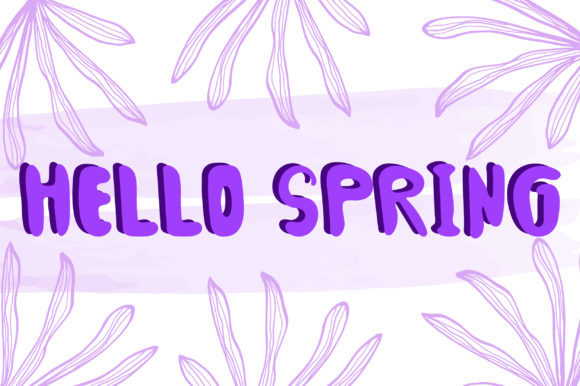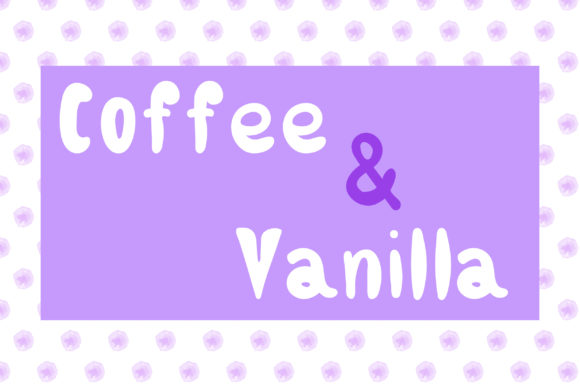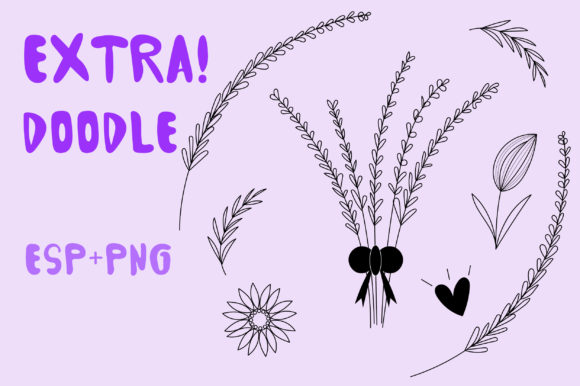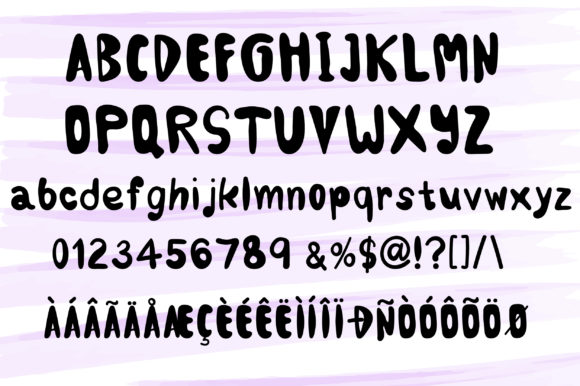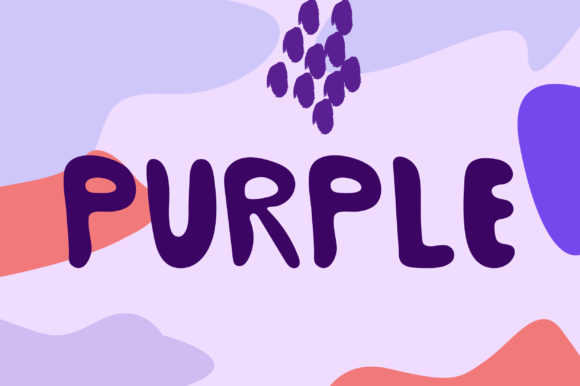
Introduction to Lovely Lavender Font
Lovely Lavender is a cute and fun script that feels both fresh and familiar.
It will look its best on any cute spring or Valentineโs Day arts and crafts project .